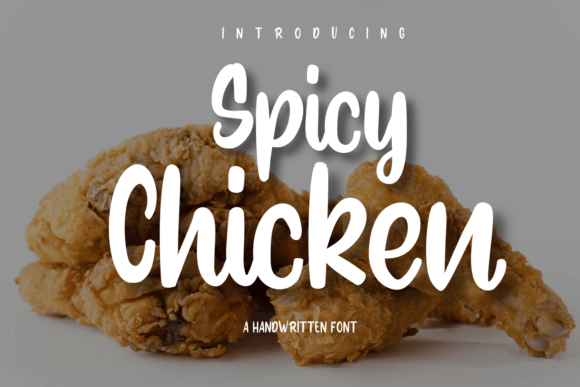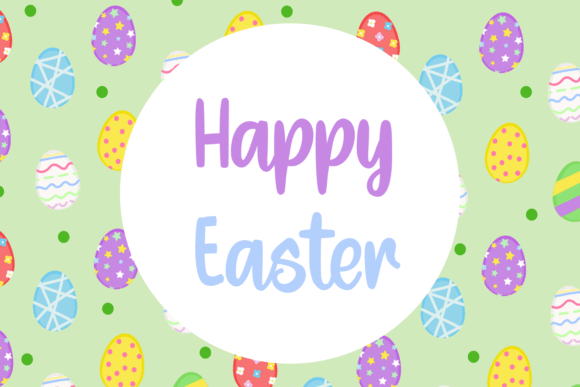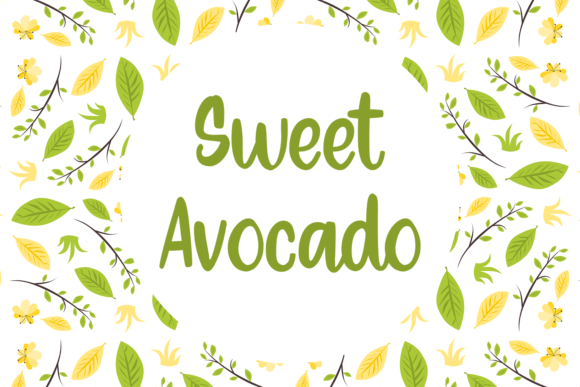
Spicy Chicken Font
About Spicy Chicken Font
Welcome to the playful world of Spicy Chicken, a fun and round-lettered handwritten font designed to add a touch of versatility and creativity to your designs. Get ready to fall in love with its charming style and use it to create spectacular visuals that stand out with a delightful flair.
Spicy Chicken is all about fun and versatility. The round-lettered design adds a playful touch to your text, making it suitable for a wide range of creative projects. Whether you’re working on posters, invitations, social media graphics, or any design that needs a fun and lively vibe, Spicy Chicken is crafted to make your designs pop.
The charm of Spicy Chicken lies in its ability to adapt to various design contexts. Its handwritten and round-lettered style brings a sense of authenticity, making your text feel personal and engaging. This font is not just a typeface; it’s a creative tool that infuses your designs with a playful and fun-loving spirit.
Consider Spicy Chicken as the font that adds zest to your creations. Its versatility makes it suitable for a multitude of applications, allowing you to experiment and create designs that captivate your audience. Let Spicy Chicken be the font that brings joy and creativity to your spectacular designs.